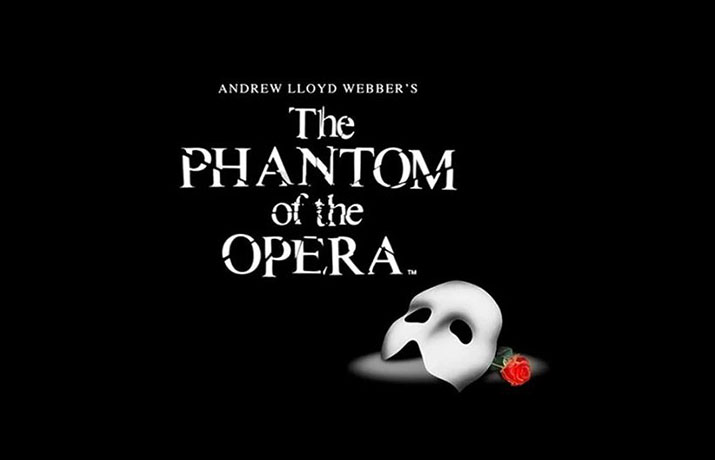
Phantom of the Opera Font is a custom logo font designed specifically for iconic music of the same name.
The typeface is based on the handwriting of the musical’s creator, Andrew Lloyd Webber, and features elegant and flowing lines that perfectly capture the show’s romantic and dramatic themes.
The Phantom of the Opera Font is a highly recognizable and beloved typeface that has become closely associated with the musical over the years.
It is often used in marketing materials, merchandise, and promotional materials for the show, helping to create a consistent and cohesive brand image.
The font that is used in the logo for the Phantom Of The Opera musical is a typeface of the same name. That was created by Cassiel Oliviari.
| Style: | Logo, Display, Typeface |
| Font Designer: | Cassiel Oliviari |
This font family is perfect for horror posters, horrible-type games, book covers, posters, business cards, gift cards, t-shirt designs, mug designs, invitation cards, homeware designs, art designs, branding projects, social media posts, and many other related places.
The font’s flowing lines and elegant curves create a sense of drama and romance, making it a popular choice for wedding invitations, romantic literature, and other creative projects.
Its flowing lines and elegant curves make it a popular choice for a wide range of creative projects, from theatrical productions to wedding invitations and more.